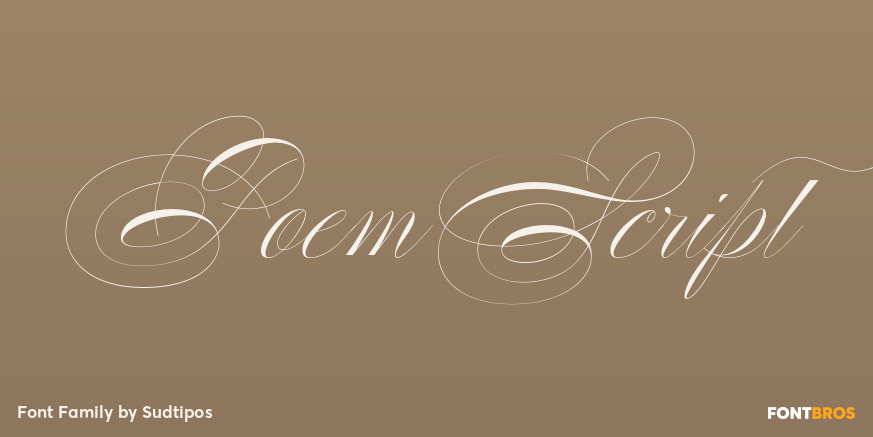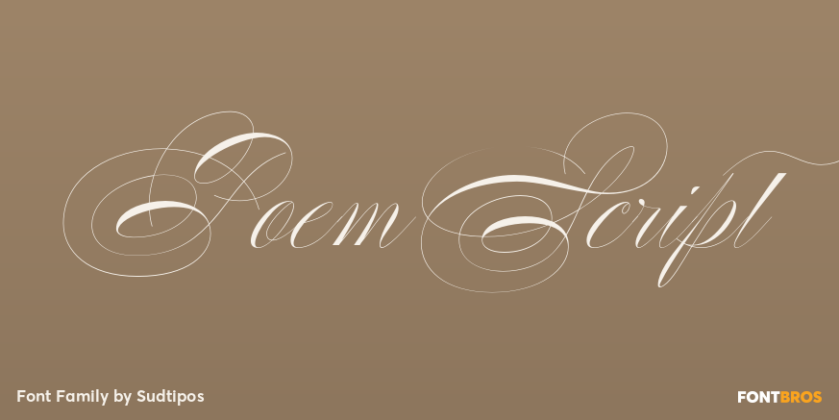
Poem Script
About Poem Script
Poem Script is a mixed collection of interpretations conjuring a late nineteenth century American pen script style. Though not an actual Italian letterform, this style was called ?Italian Alphabet? stemming from an old penman\’s term for an alphabet where…